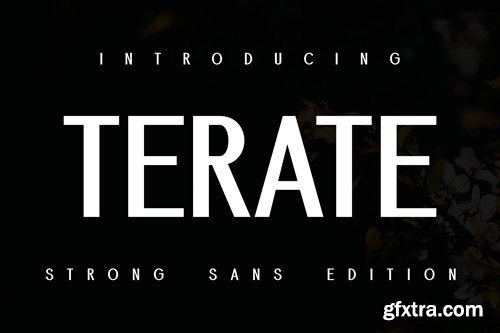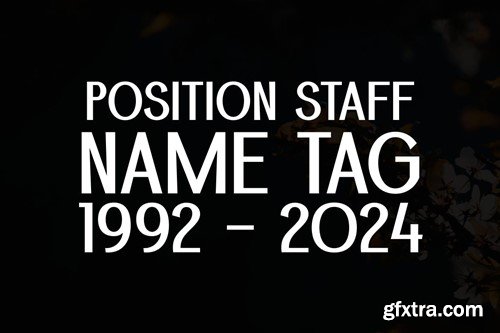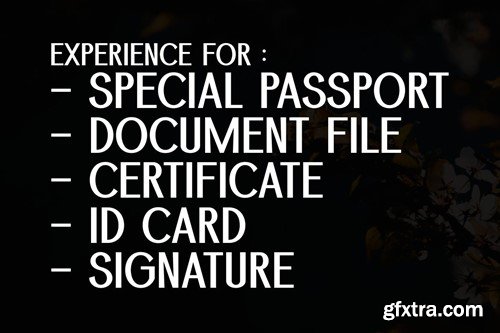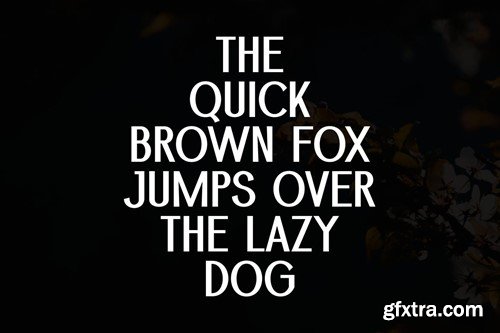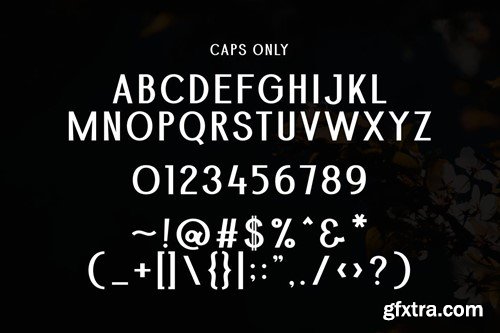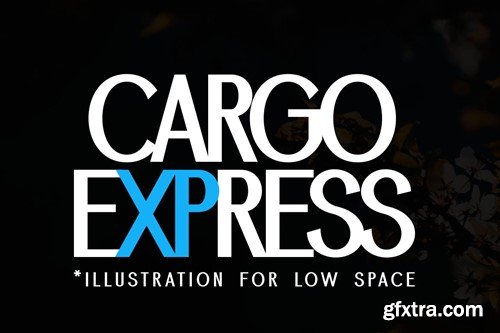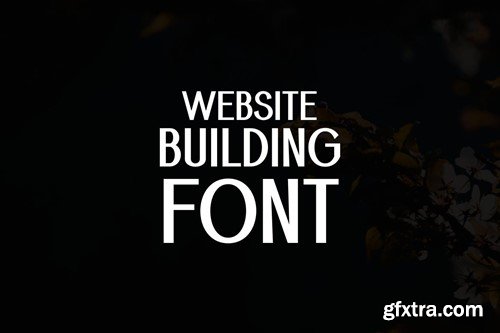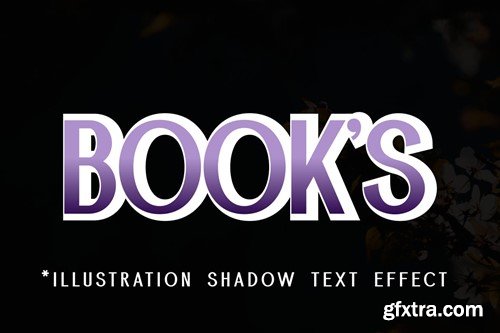
Demore Terate Font
Introducing Demore Terate, a resolute, sturdy font with geometric undertones. Its reliable and robust aesthetics make it particularly suitable for utilization in paramount documents like passports, identity cards, report cards, and other essential files. Its sophisticated construct exudes an inherent competence, ensuring a sharp, professional impression at every use. file in .OTF and .TTF.